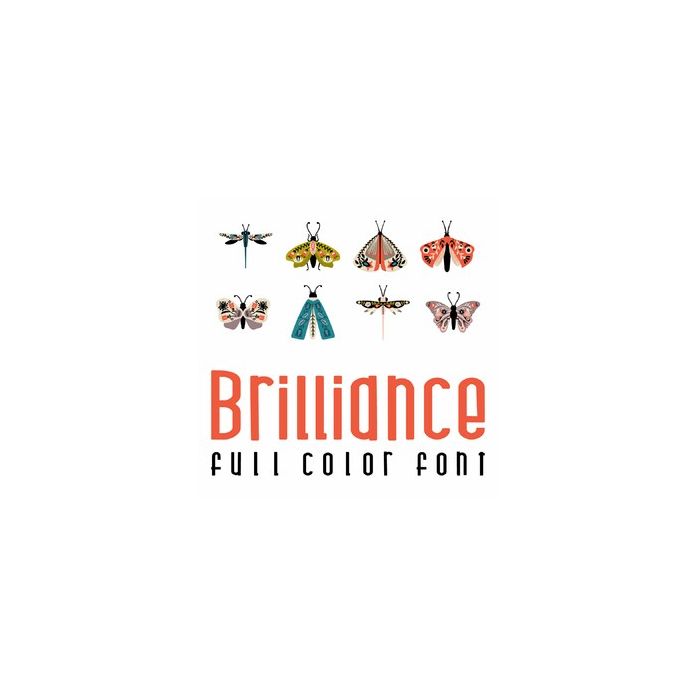
This adorable full color doodlebat font features beautiful butterflies, dragonflies and moths. Perfect for cards, crafts, gifts, decor, scrap book pages, planner stickers and more!